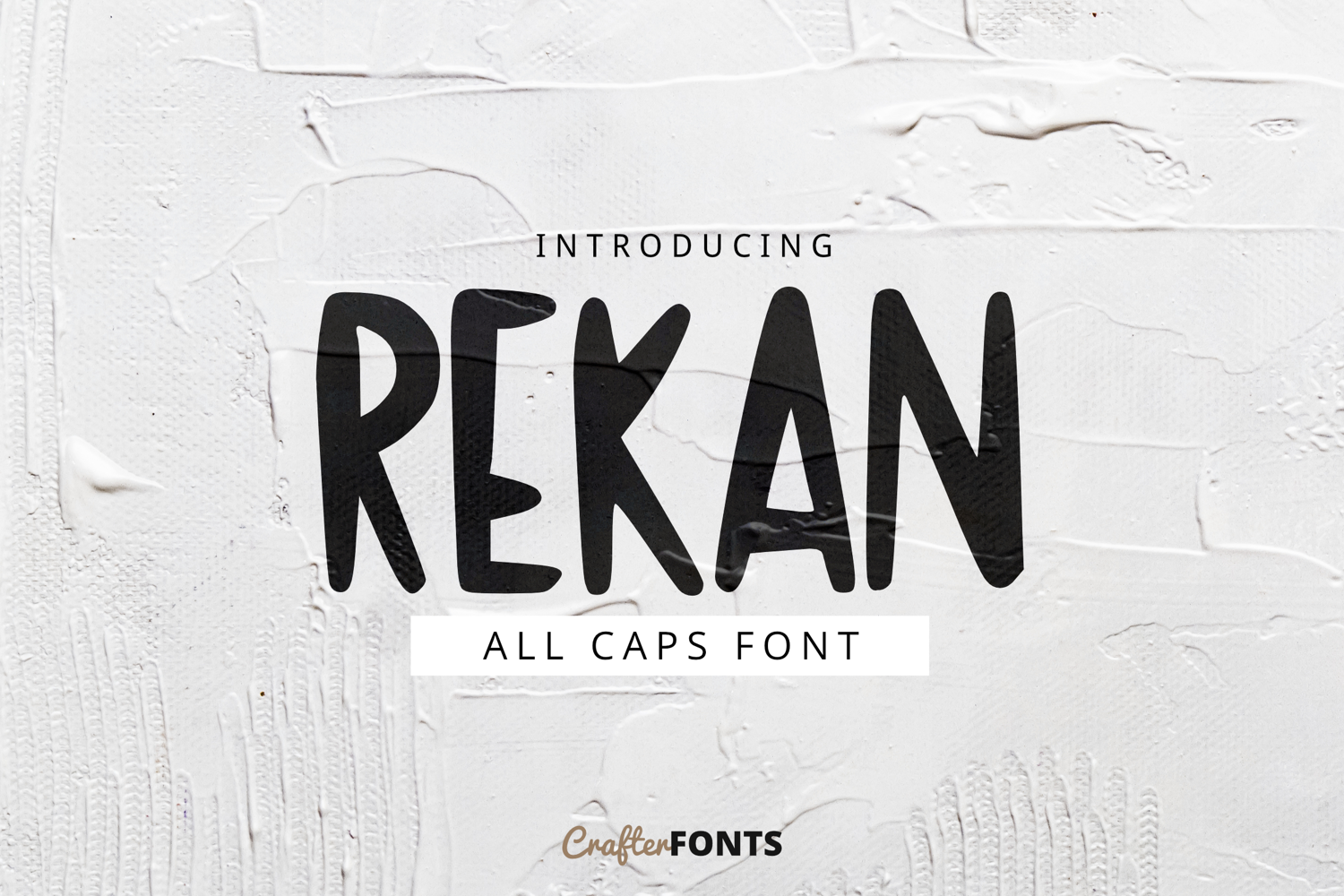
Rekan All Caps Font
Rekan Regular
Rekan – All Caps Font
Make an impact with Rekan, a bold and charming all-caps display font with a friendly handwritten spirit. Featuring slightly tall, solid, and organic strokes, it gives your text a powerful yet highly approachable feel. It is perfectly tailored for headlines, book covers, playful product packaging, merchandise prints, quote graphics, and modern branding projects.
• Basic Latin Character Set – Designed with a complete layout of capital letters, stylized secondary uppercase alternates, Numbers (0-9), and essential Punctuations/Symbols.
• Character Set & Multilingual Support – Includes Uppercase, Lowercase, Numbers, essential Punctuations, and extended character support for languages such as English, French, Spanish, German, Italian, Indonesian, and Malay.